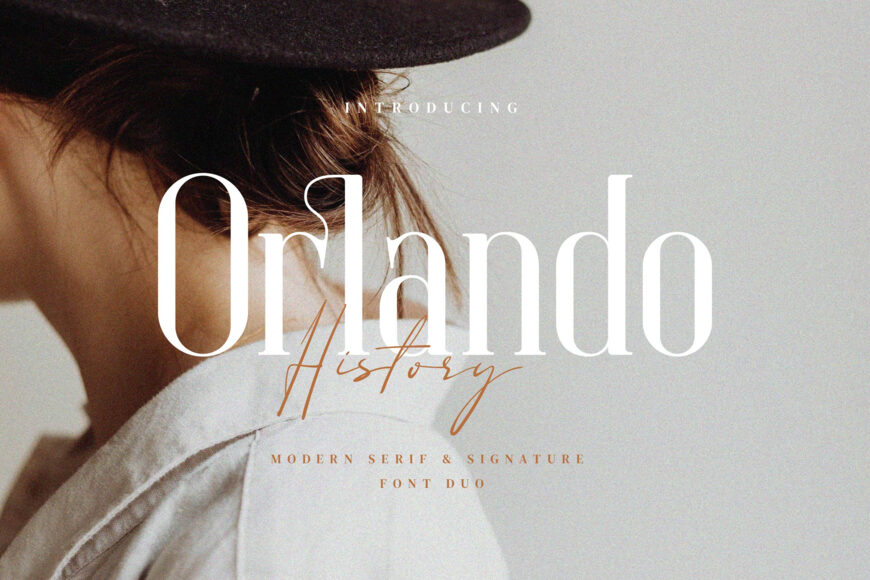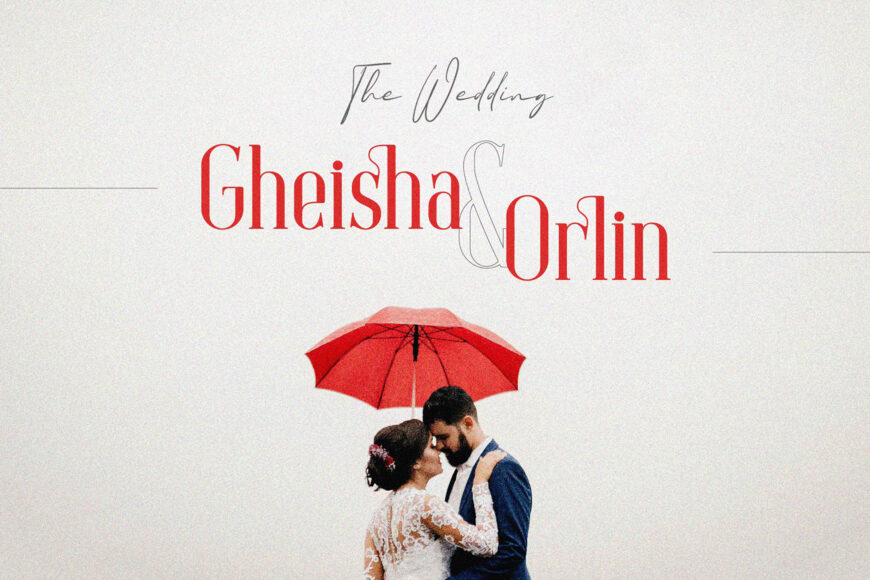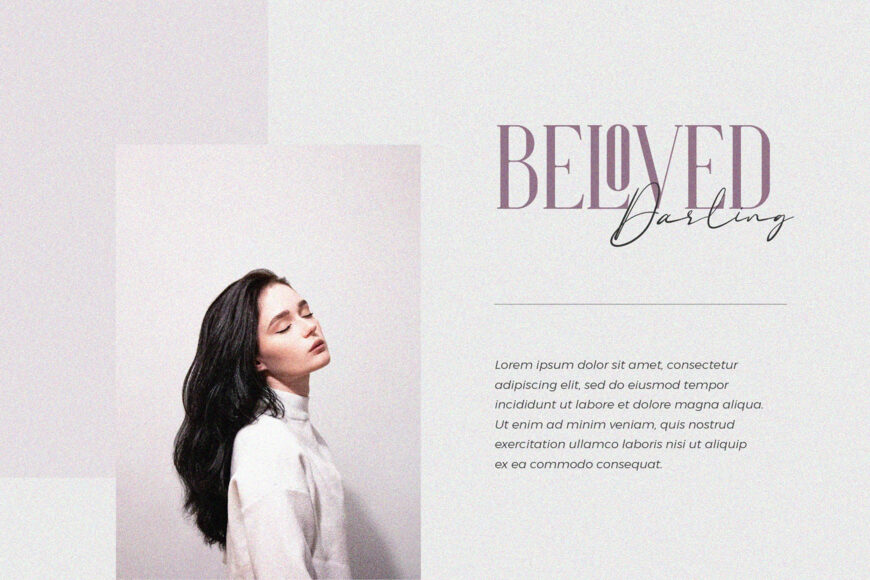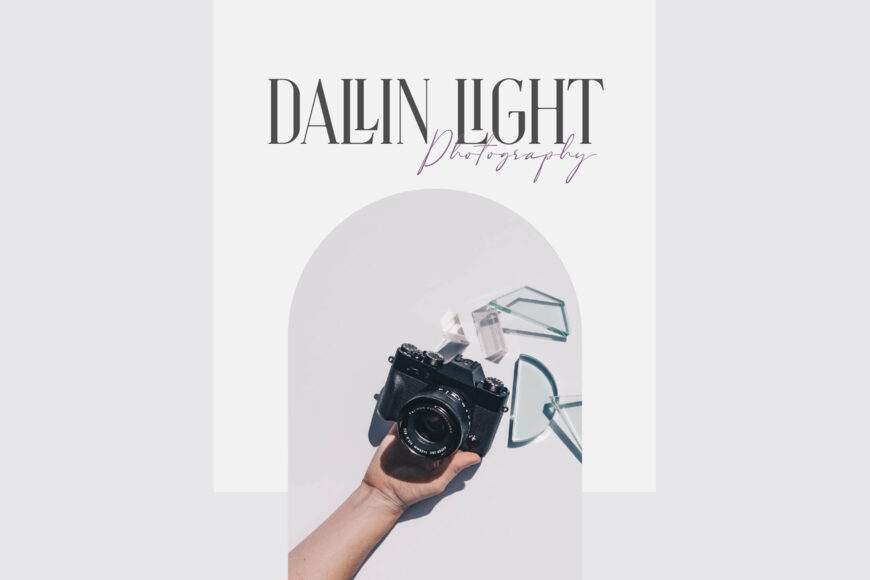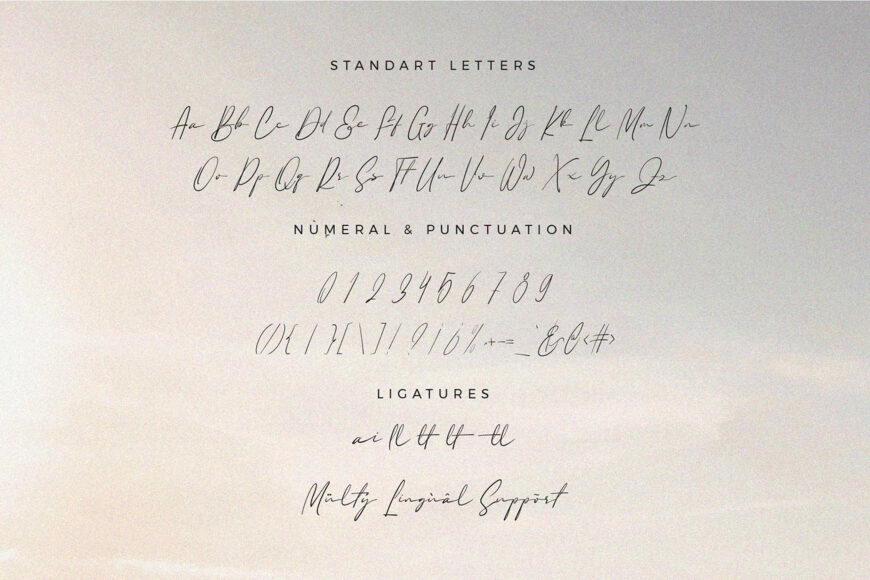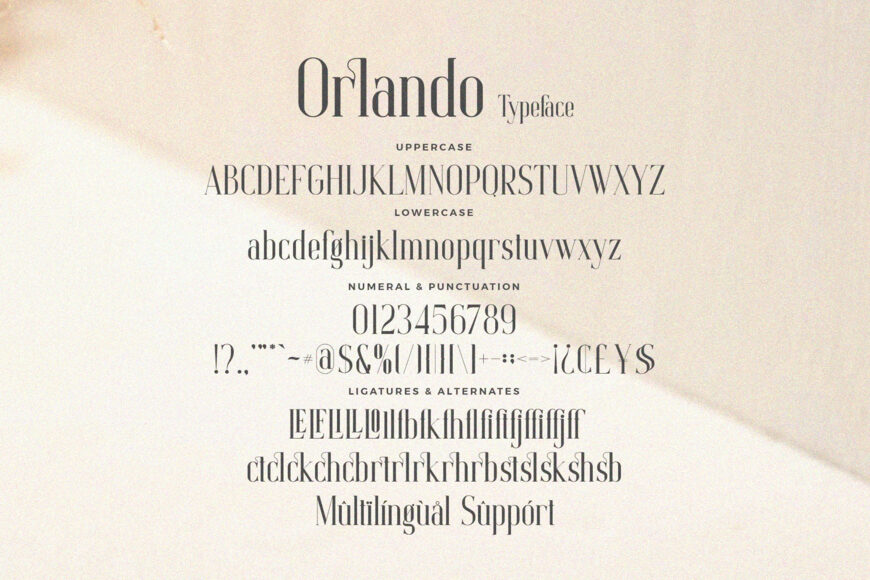
Orlando Font Duo
The Orlando and History font duo embodies timeless sophistication. With clean lines and balanced serifs, they convey refinement and professionalism while maintaining simplicity.
Perfect for elegant designs, these fonts offer effortless access to unique glyphs and ligatures, thanks to PUA encoding. Their classic style brings harmony and balance, making them ideal for projects requiring a touch of refinement.